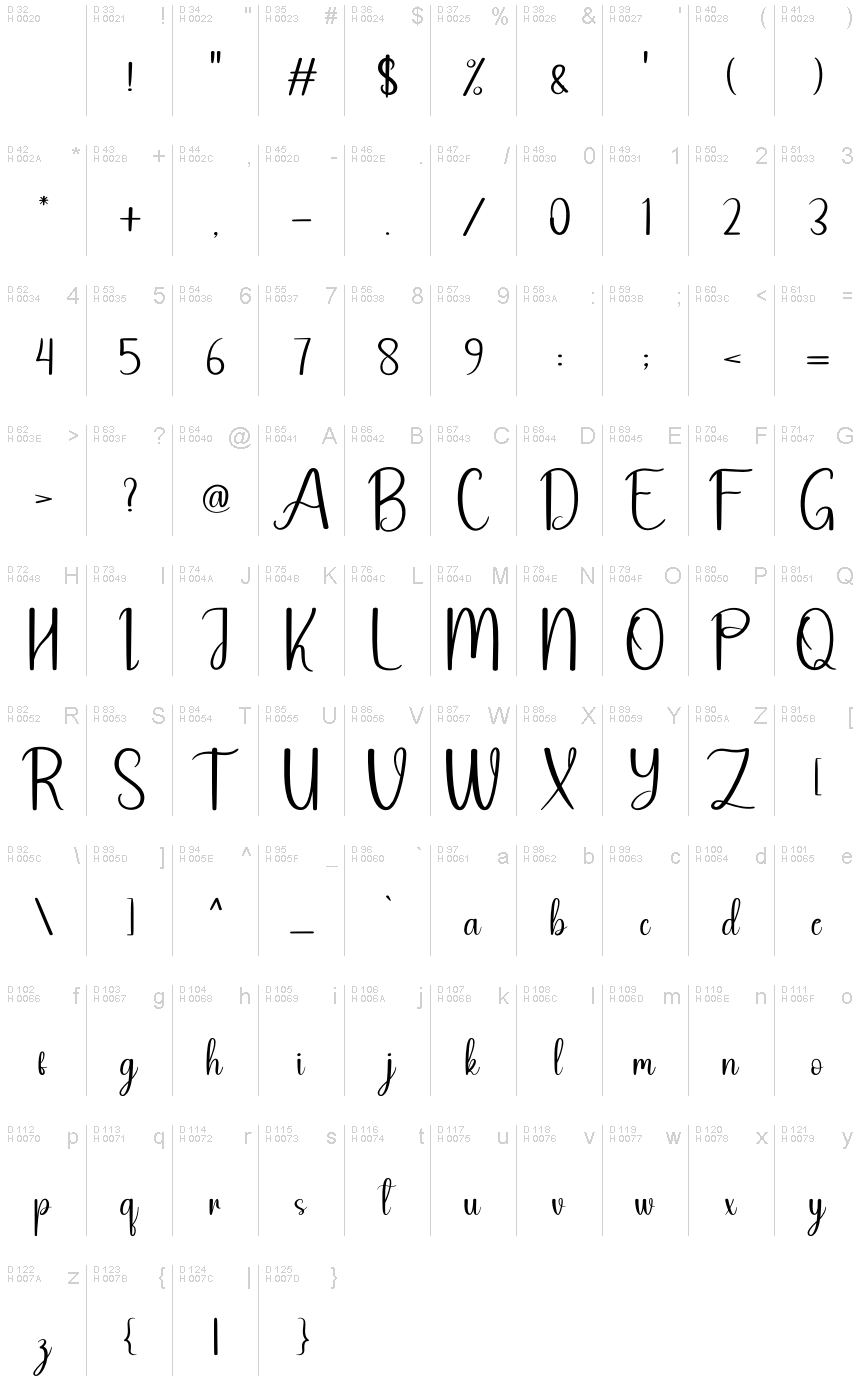
White Rope
White Rope is a captivating handwritten font that exudes a sense of elegance and charm. Designed by Andi Moz, this font boasts a seamless flow and graceful curves, effortlessly capturing the essence of a calligraphic style.
The script-like strokes and delicate ligatures create a harmonious, organic aesthetic, making it an ideal choice for projects seeking a touch of sophistication and personalization. From wedding invitations to editorial layouts, the versatility of "White Rope" allows it to seamlessly integrate into a wide range of design applications, elevating the overall aesthetic with its refined and distinctive character.